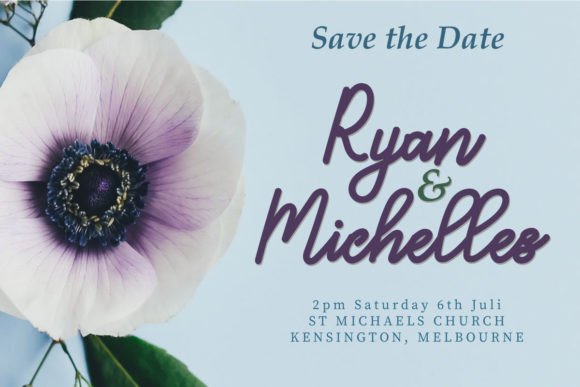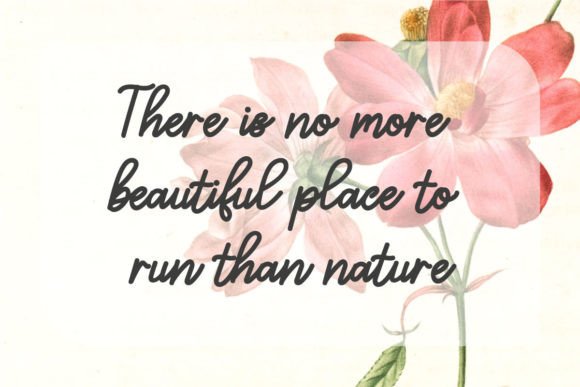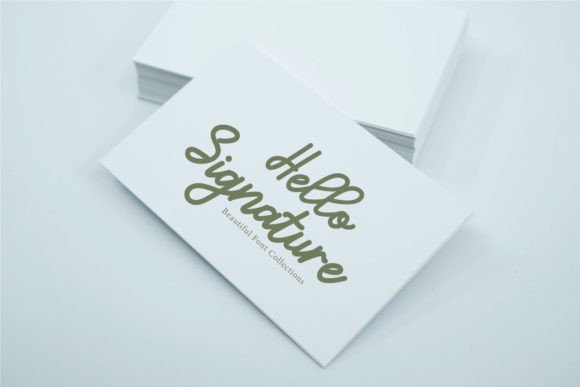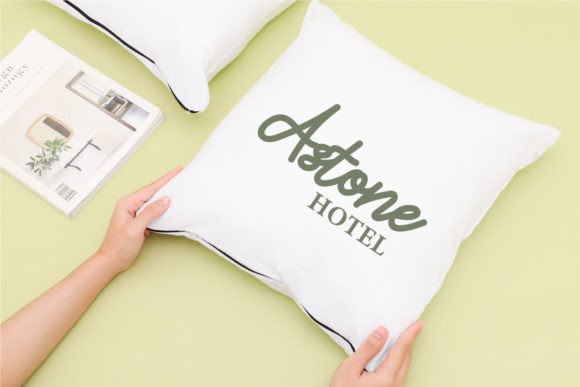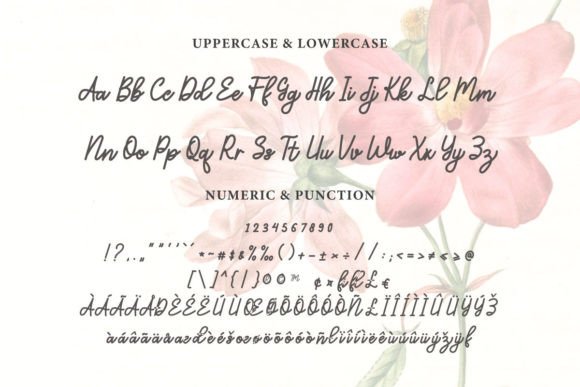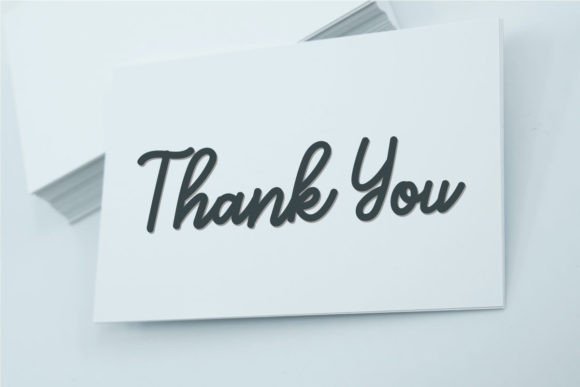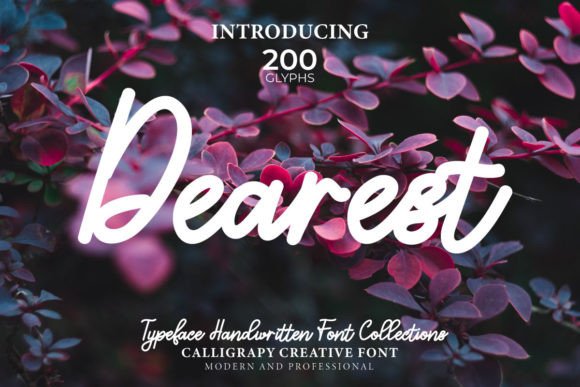
Introducing Dearest Font: The Ultimate Handwritten Font for Creative Projects
Are you a designer, crafty person, or someone who loves creating visually appealing content? Look no further! We’re excited to introduce Dearest Font, a stunning handwritten font that’s perfect for a wide range of creative projects. In this article, we’ll dive into the features and benefits of Dearest Font, and explore how it can elevate your designs to the next level.
What is Dearest Font?
Dearest Font is a beautiful, handwritten font that’s designed to add a touch of elegance and sophistication to your projects. Its unique, cursive style is perfect for creating eye-catching displays, invitations, and marketing materials that stand out from the crowd. Whether you’re a professional designer or a DIY enthusiast, Dearest Font is an excellent choice for anyone looking to add some personality to their typography.
Features of Dearest Font
So, what makes Dearest Font so special? Here are some of its key features:
- Handwritten style: Dearest Font has a beautiful, handwritten look that’s perfect for creating personal and emotional connections with your audience.
- Unique character set: The font includes a wide range of characters, including uppercase and lowercase letters, numbers, and punctuation marks.
- High-quality design: Dearest Font is designed with precision and attention to detail, ensuring that it looks great in any context.
- Versatile: This font can be used for a wide range of projects, from wall displays and wedding invitations to social media posts and product packaging.
Use Cases for Dearest Font
Dearest Font is an incredibly versatile font that can be used for a wide range of creative projects. Here are some ideas to get you started:
- Wall displays: Create stunning wall displays with Dearest Font, perfect for showcasing quotes, lyrics, or inspiring messages.
- Wedding invitations: Add a touch of elegance to your wedding invitations with Dearest Font, making them truly unforgettable.
- Social media posts: Elevate your social media posts with Dearest Font, making them stand out in crowded feeds.
- Logos and branding: Use Dearest Font to create unique and memorable logos and branding materials that reflect your personality and style.
- Advertisements: Create eye-catching advertisements with Dearest Font, perfect for grabbing attention and driving results.
- Product packaging: Add a personal touch to your product packaging with Dearest Font, making your products feel more special and unique.
- Product designs: Use Dearest Font to create stunning product designs, from labels to watermarks, that showcase your brand’s personality.
- Invitations and stationery: Create beautiful invitations and stationery with Dearest Font, perfect for special occasions and everyday correspondence.
Why Choose Dearest Font?
With so many fonts available, why choose Dearest Font? Here are just a few reasons:
- Unique style: Dearest Font has a unique, handwritten style that’s sure to stand out in any context.
- Ease of use: This font is incredibly easy to use, even for those without extensive design experience.
- High-quality design: Dearest Font is designed with precision and attention to detail, ensuring that it looks great in any context.
- Versatility: This font can be used for a wide range of projects, making it an excellent addition to any designer’s toolkit.
Dearest Font is a stunning handwritten font that’s perfect for designers, crafters, and anyone looking to add some personality to their typography. With its unique style, ease of use, and high-quality design, this font is sure to elevate your creative projects to the next level. Whether you’re creating wall displays, wedding invitations, social media posts, or product packaging, Dearest Font is an excellent choice. So why wait? Download Dearest Font today and start creating stunning designs that showcase your personality and style!